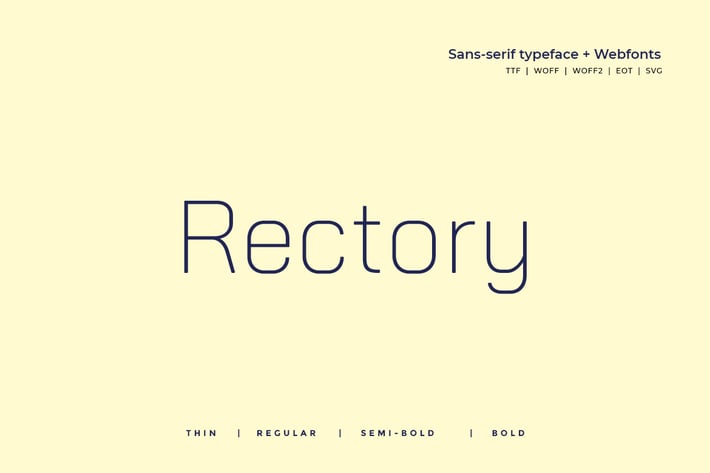
Rectory - Modern Typeface + WebFont
Rectory Modern Typeface
Rectory is a modern and Minimal Sans Serif typeface, Rectory Sans can keep the minimalism at its level best and is a Perfect choice for Creative and Classic Typography Designs with unique typography with 4 font weights.
Weights : THIN | REGULAR | SEMI BOLD | BOLD
Font Designed and Crafted by Webhance Studio.